Turn ordinary text into eye-catching font styles in seconds. Simply type or paste your text into our font style generator and instantly create hundreds of stylish fonts you can copy and paste anywhere.
Whether you want a unique Instagram bio, a standout gaming username, a creative WhatsApp status, or a stylish social media caption, our free font style generator makes it easy. No downloads, no software, and no design experience required.
Unlike traditional fonts that need to be installed on your device, the font styles generated here use Unicode characters. That means they work across most modern platforms, including Instagram, WhatsApp, Discord, TikTok, Facebook, X, and many more.
With more than 500 font styles available, you can instantly generate:
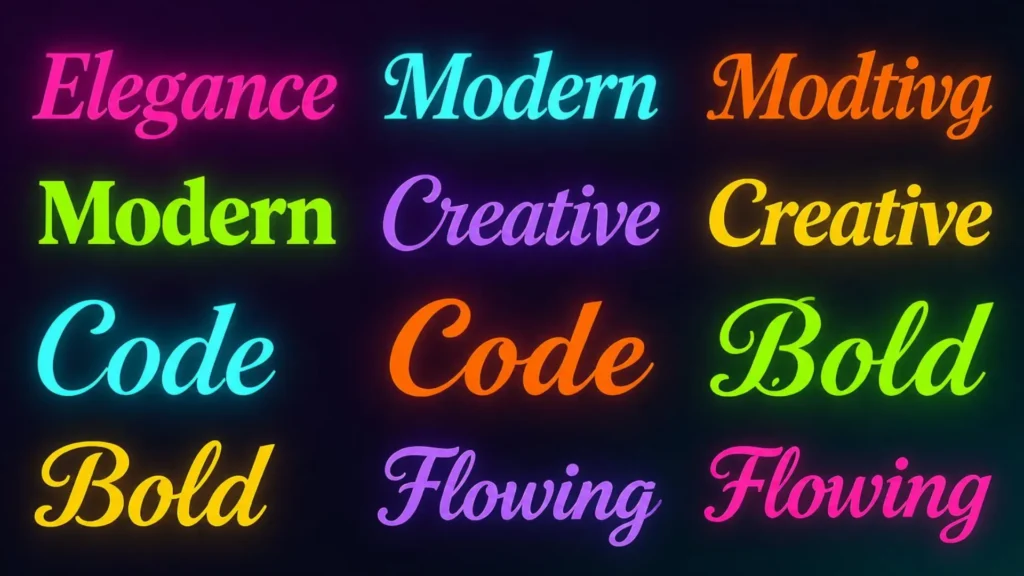
Type your text above, browse through the available styles, and copy your favorite with a single click.
Why Use Our Font Style Generator?
Most people want their text to stand out, but creating custom typography normally requires design software, font installations, or advanced editing tools. Our font style generator removes all of that complexity. Instead of downloading fonts or learning graphic design, you can instantly transform ordinary text into stylish variations that are ready to use anywhere online.
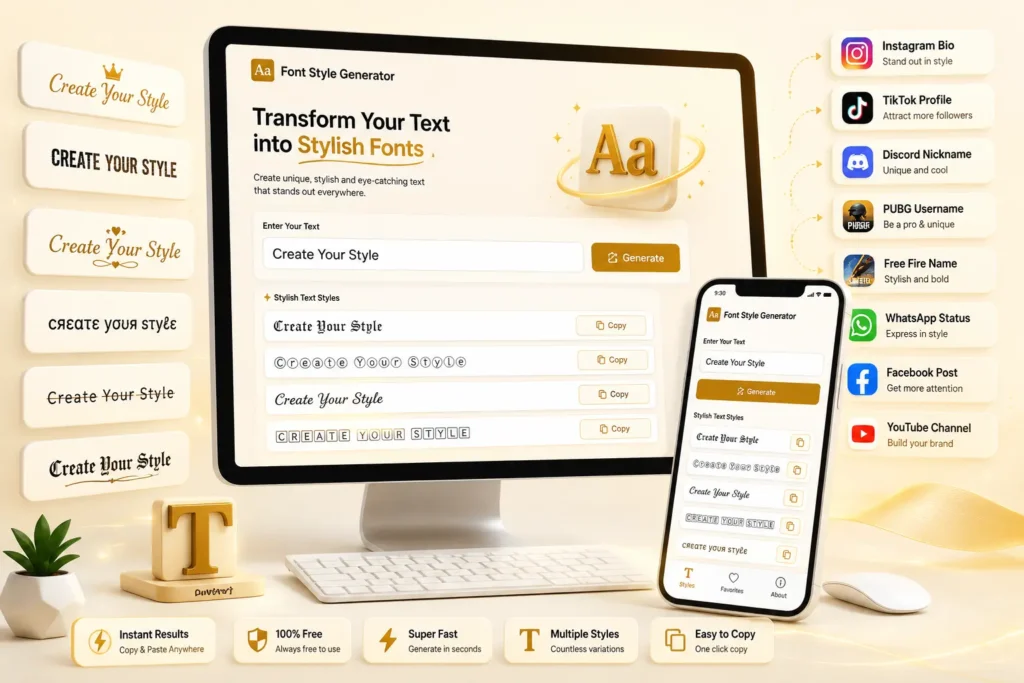
Whether you’re creating:
you can generate and copy stylish text within seconds. The best part is that everything is completely free. Simply enter your text, choose a style, and paste it wherever you want to use it.
How to Use the Font Style Generator
Using our font style generator takes less than a minute. You do not need to install any fonts, download any apps, or create an account. Everything works directly in your browser.
Step 1: Enter Your Text
Type or paste any text into the generator box. This can be:
As soon as you enter your text, the generator automatically creates multiple font style variations.
Step 2: Browse Different Font Styles
The tool instantly converts your text into a wide range of font styles, including:
Step 3: Copy Your Favorite Font Style
When you find a font style you like, simply click the copy button next to it.
The styled text will be copied to your clipboard instantly.
There is no need to manually select text or install anything on your device.
Step 4: Paste It Anywhere
You can paste your new font style almost anywhere online, including:
Because the generated styles use Unicode characters, they work across most modern devices and platforms.
Step 5: Experiment With Different Styles
Not every font style works equally well for every situation. For example:
Try several options before choosing one. Sometimes a simple style creates a stronger impression than an overly decorative one.
Different Types of Font Styles
A font style refers to the visual appearance of text. It determines how letters, numbers, and symbols look when displayed on a screen or printed on paper. When you see text that appears bold, italic, cursive, decorative, or gothic, you are looking at different font styles. Although the words remain the same, the appearance changes, creating a different visual effect and emotional impression.
For example, the word “Hello” can be displayed in many different font styles:
Each style gives the same word a unique personality.
Font Style vs Font: What’s the Difference?
Many people use the terms “font” and “font style” interchangeably, but they are not exactly the same.
A font is a complete typeface file that contains letters, numbers, punctuation marks, and symbols. Popular examples include:
A font style is a variation of how text appears. For example, within a font family, you may find:
In simple terms:
Why Are Font Styles So Popular?
Font styles help people express personality, creativity, and emotion through text.
Instead of using plain text, users can create text that feels:
This is why font styles are widely used across social media platforms, gaming communities, personal branding, graphic design, and digital marketing.
A unique font style can make a profile, username, caption, or message more memorable and visually appealing.
Why Do Online Font Style Generators Work?
Traditional fonts require installation on a computer or device. Online font style generators work differently. Instead of creating new font files, they convert ordinary letters into special Unicode characters that already exist within the global text standard used by modern devices.
For example, a normal letter can be transformed into:
Because these are actual Unicode characters rather than images, they can usually be copied and pasted across many websites, apps, and social media platforms. This is what makes font style generators so popular. They allow anyone to create stylish text instantly without downloading software or installing fonts.
Whether you need:
Our generator makes the process fast, simple, and completely free. The best part is that you can experiment with countless styles instantly until you find the perfect look for your text.